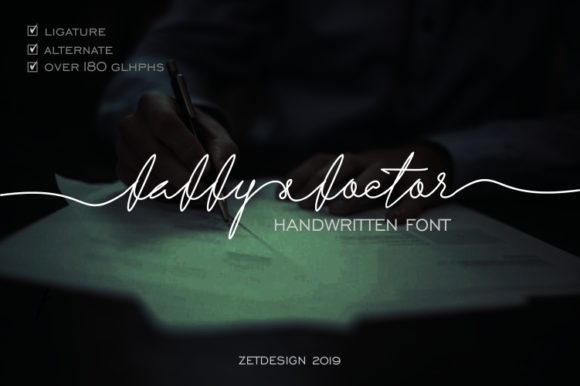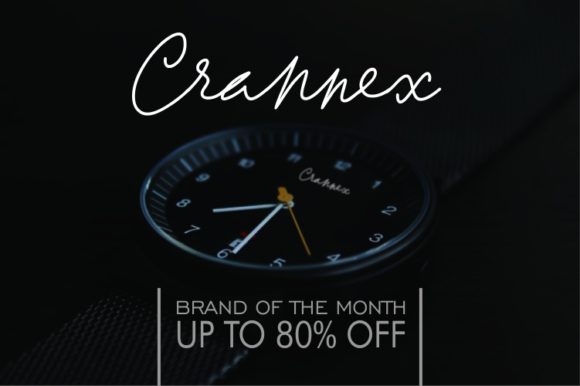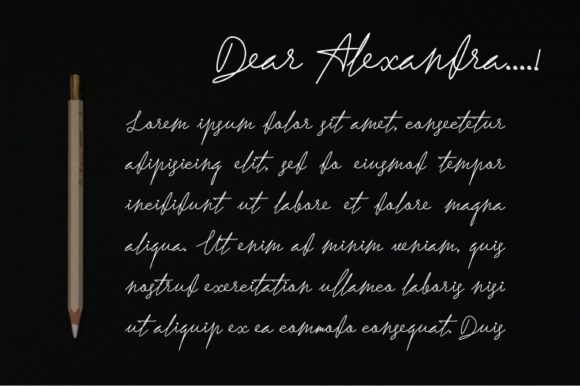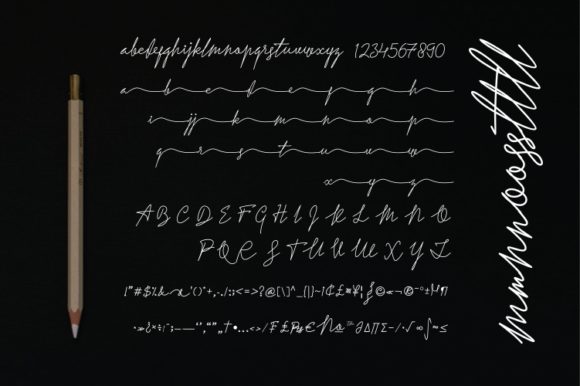
Daddy & Doctor Font
About Daddy & Doctor Font
Daddy & Doctor is a fun and cool handwritten font with incredibly authentic lettering. It’s the ideal typeface for adding a personal flavor to any crafting idea.